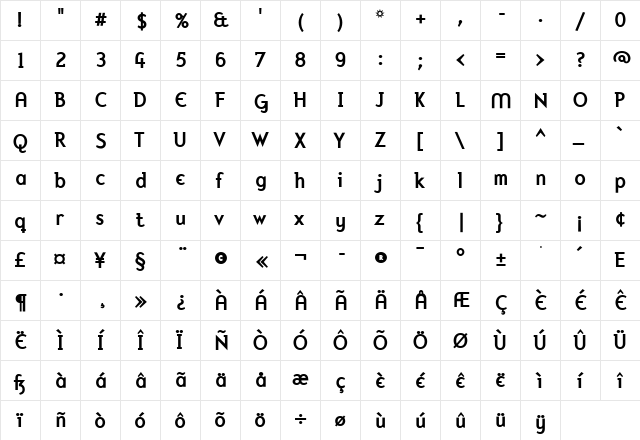
Mercury Bold
Design Context for Mercury Typeface
Mercury offers clean, dependable letterforms without strong stylistic allegiance, making it a practical choice for designers who need flexibility. The heavy weight commands attention and anchors typographic hierarchies.